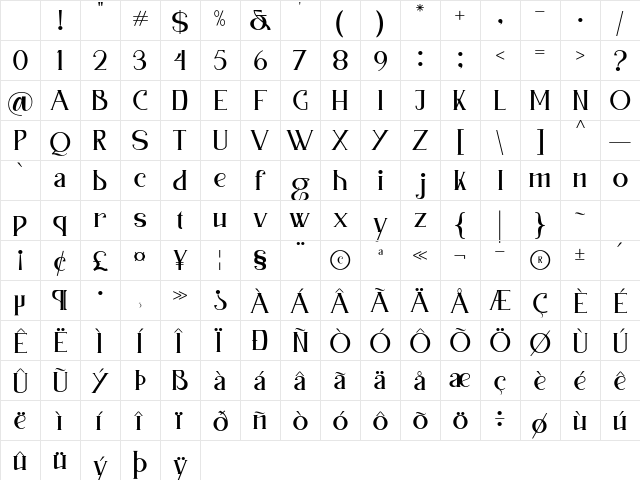
Complete Chopper Regular glyph index. Displaying only characters natively supported by Chopper Regular font.
Chopper is a composed and adaptable typeface that performs quietly and consistently across a wide range of design contexts.